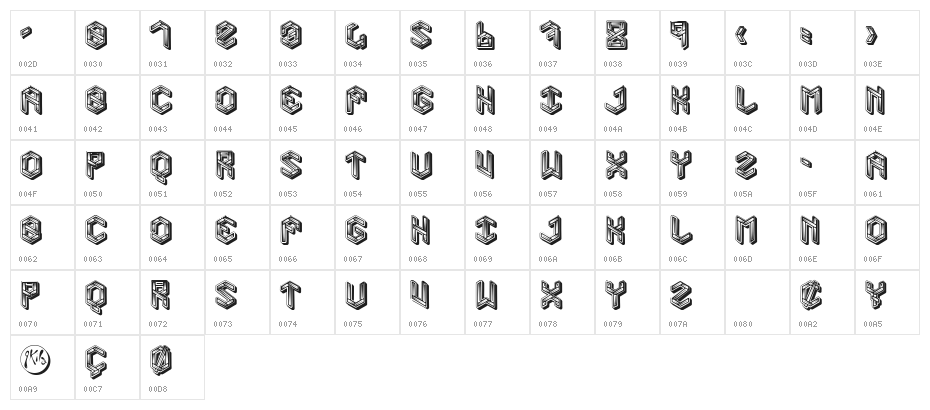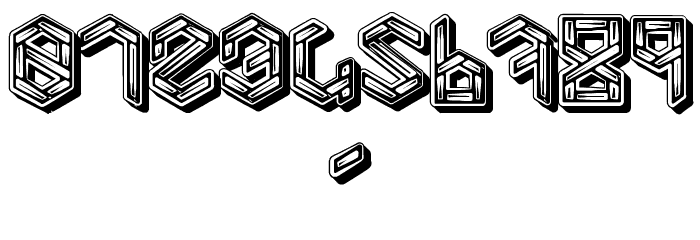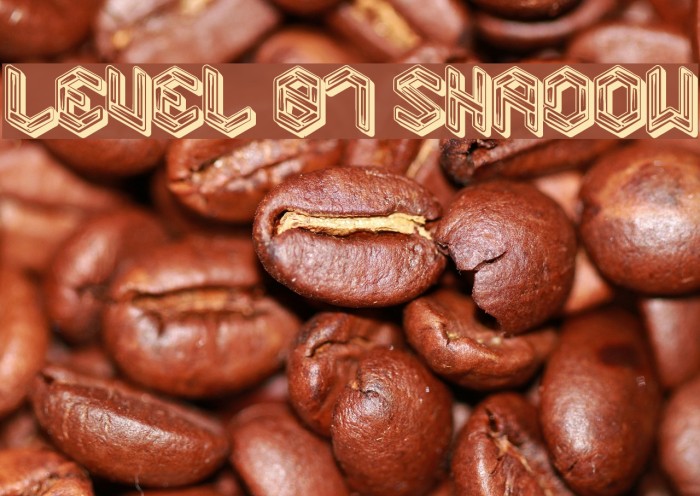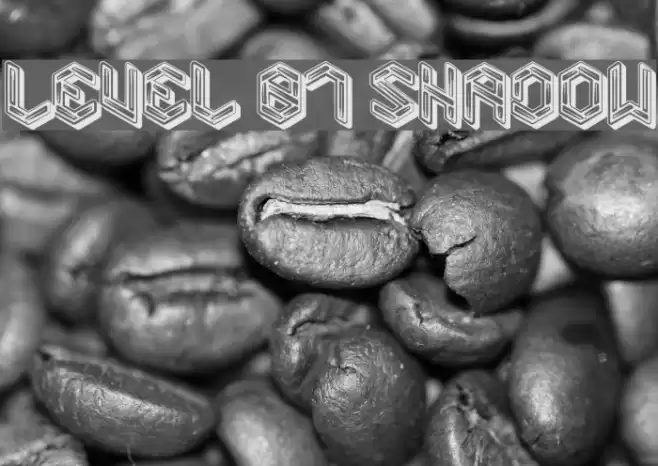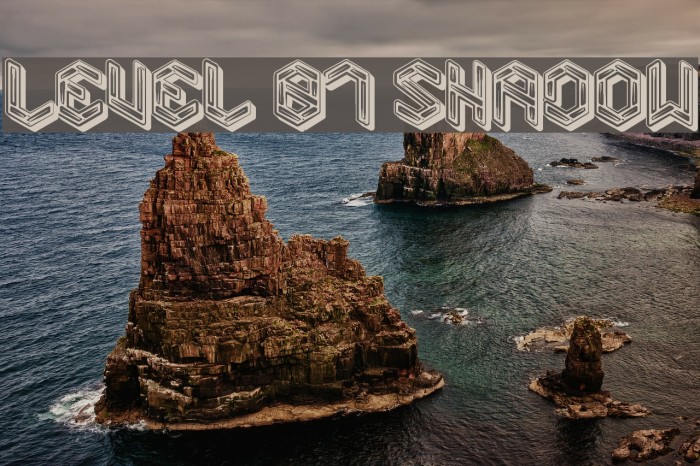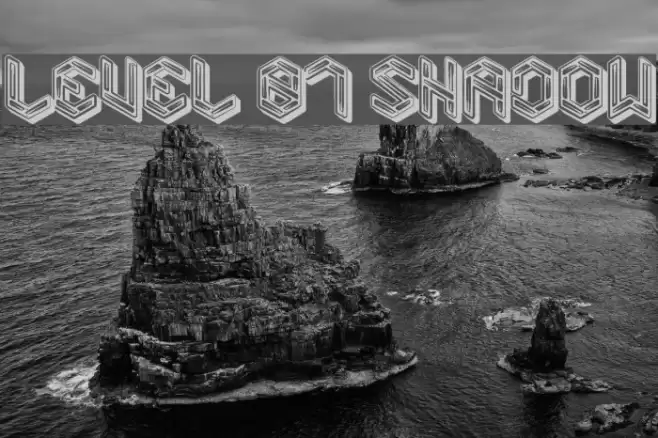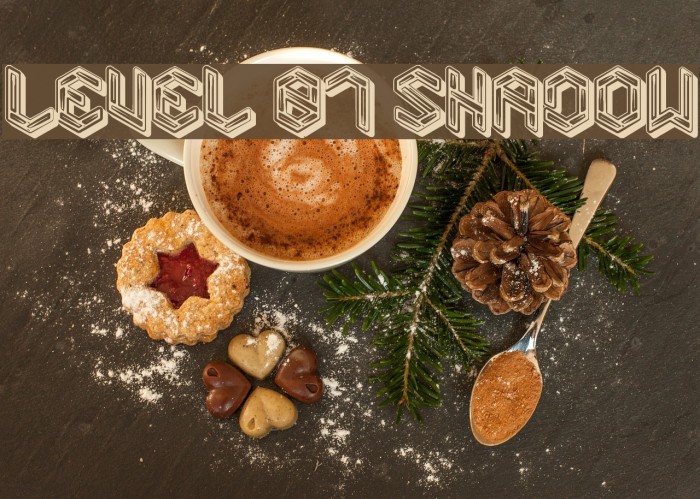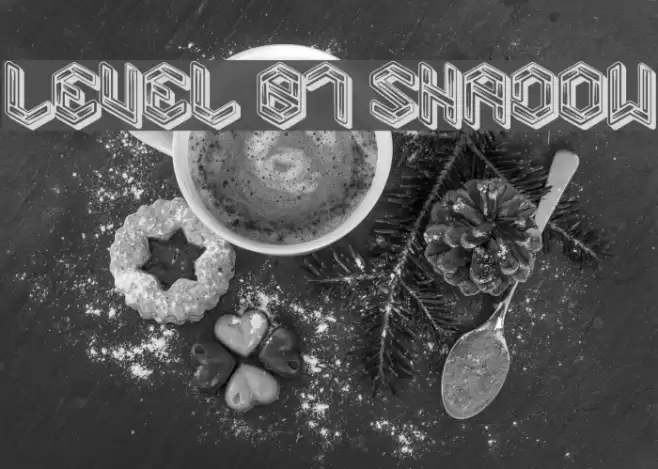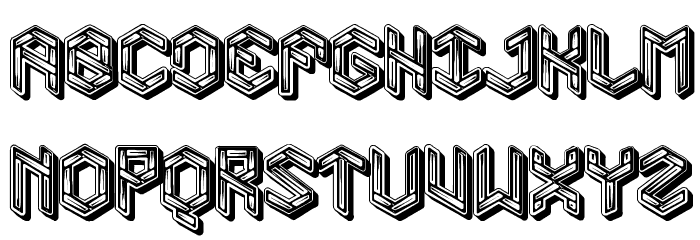
Level 01 Shadow Font
Level 01 Shadow Description
This font features a bold, three-dimensional design with a shadow effect that gives each character a sense of depth and structure. The letters are constructed with geometric precision, creating a futuristic and dynamic appearance. The uppercase and lowercase letters maintain a consistent style, with sharp angles and clean lines that enhance the overall aesthetic. The numbers and special characters follow the same design principles, ensuring uniformity across all glyphs. This font's unique style makes it stand out, ideal for projects that require a modern and eye-catching typeface.
| Proposed Projects | Ideal for video game titles, tech-themed posters, futuristic branding, and digital media. |